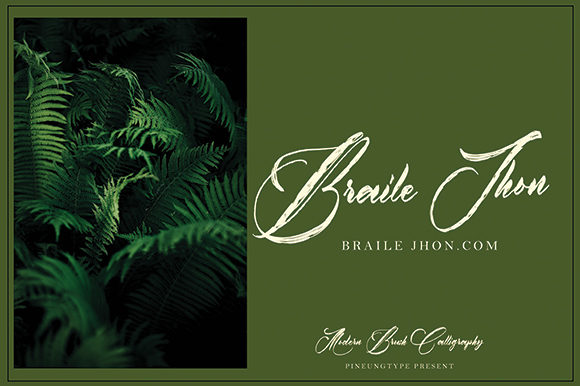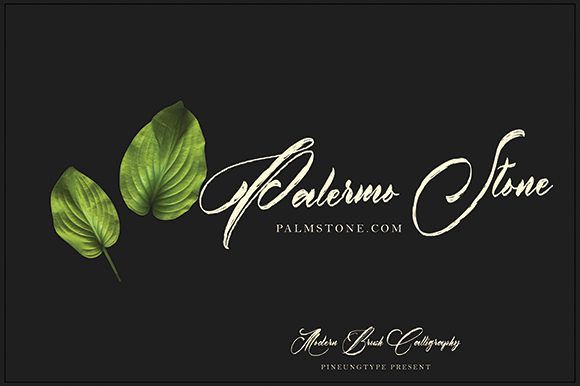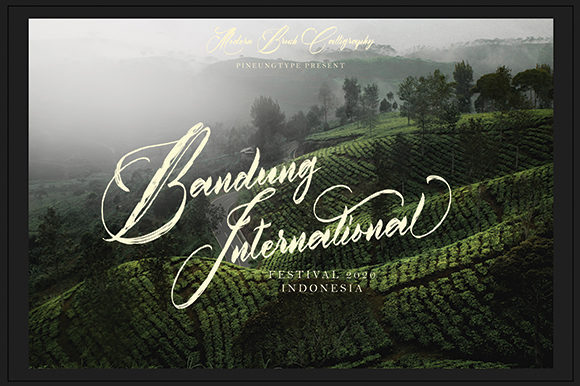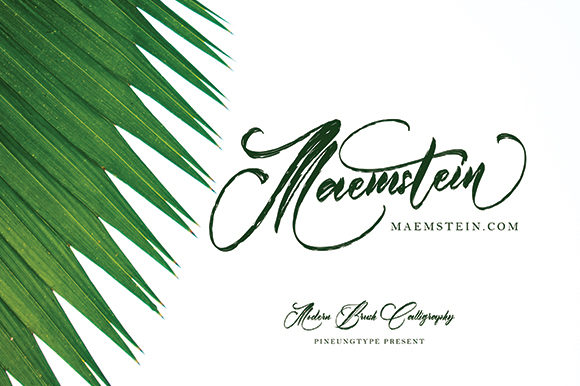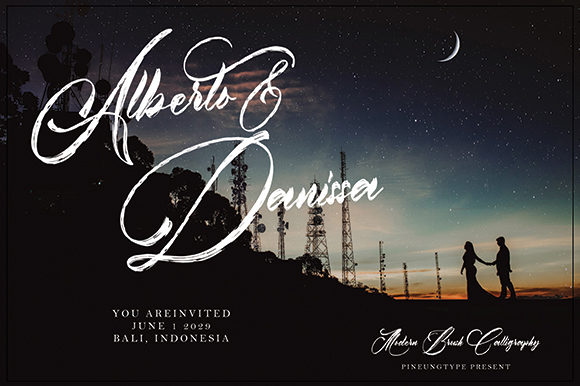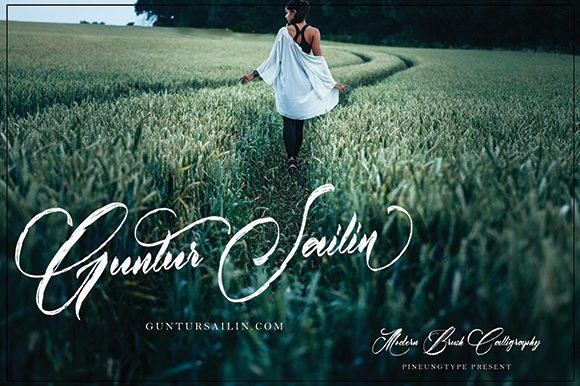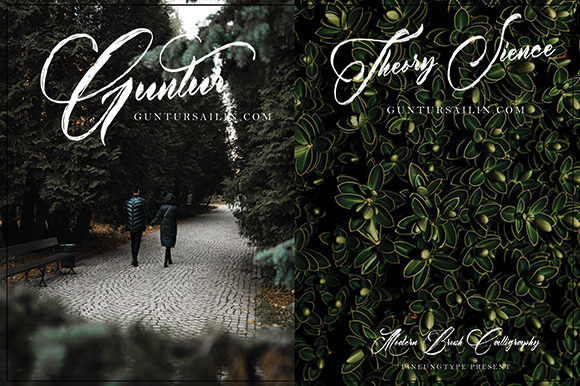
Austin Font
About Austin Font
Austin is an organic and cute script that feels elegant and sophisticated. Use it to turn any design project into a masterpiece.